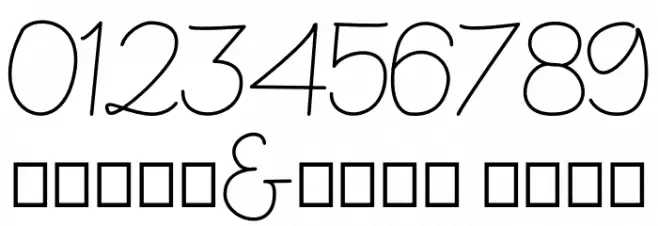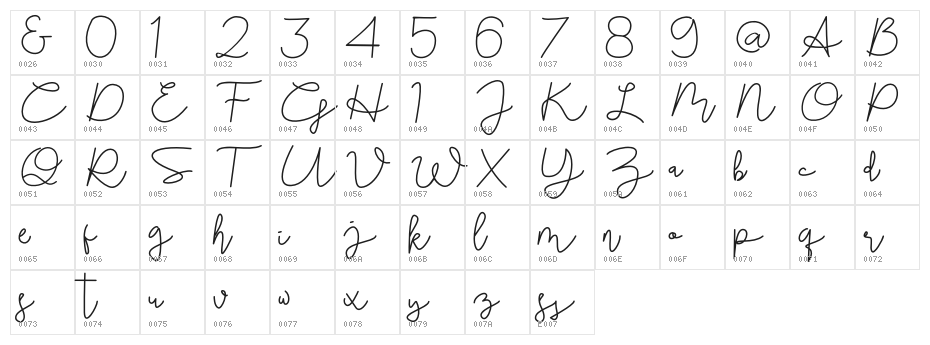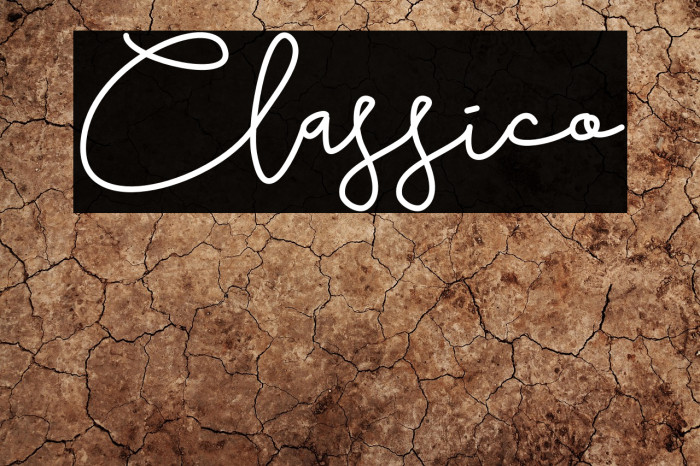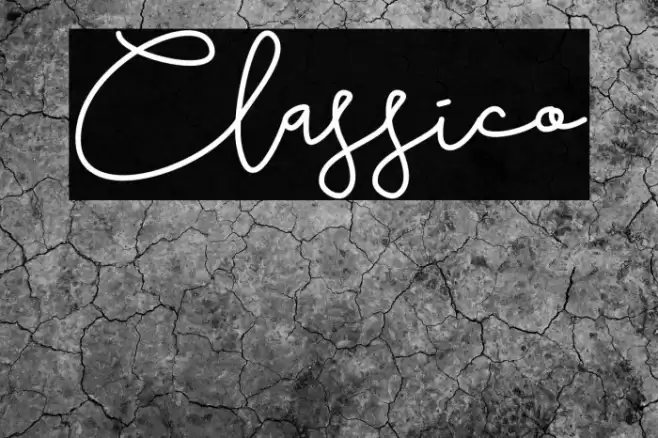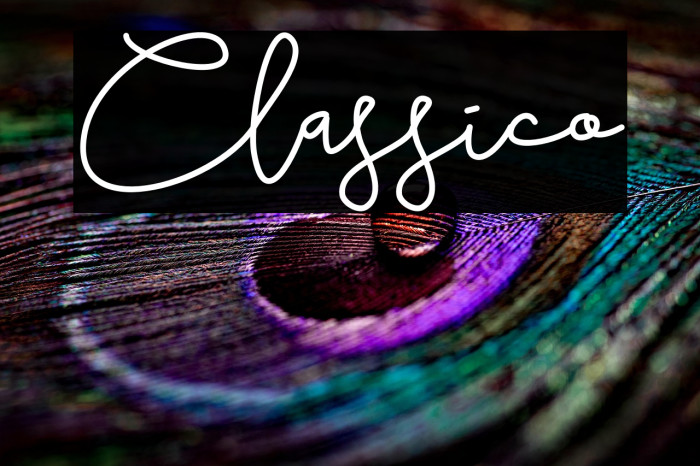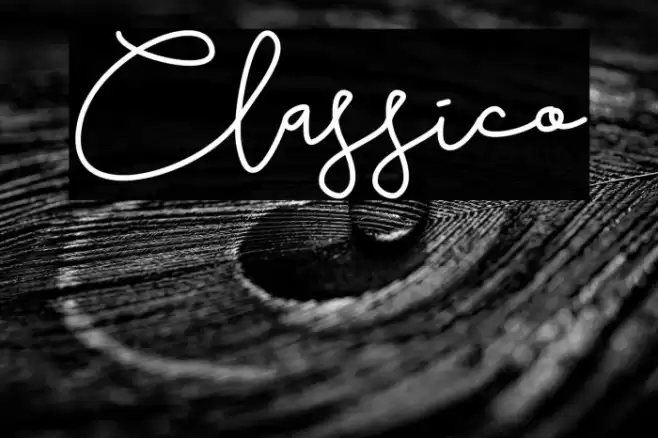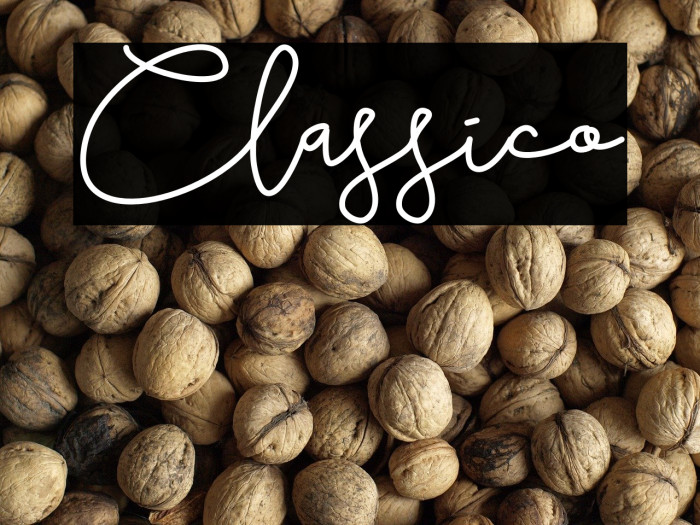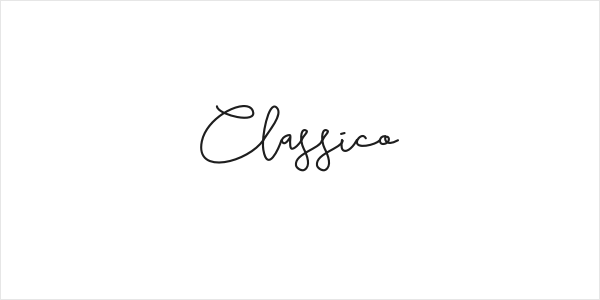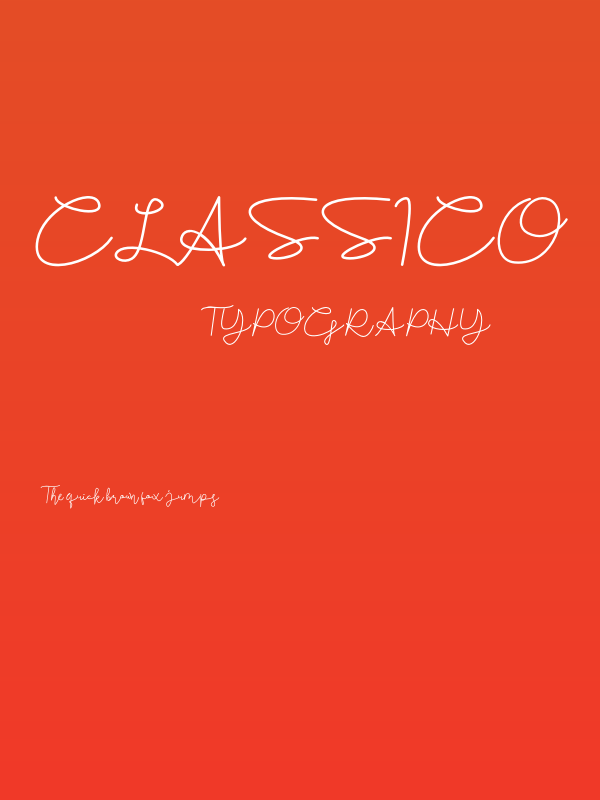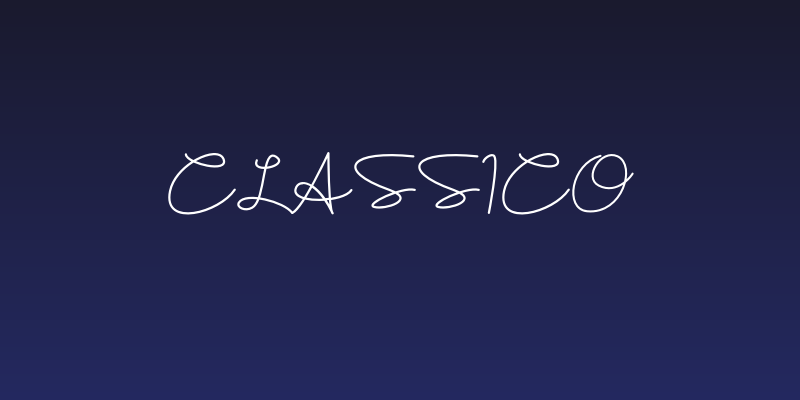
Classico Font
Classico Description
This font features a playful and flowing script style, characterized by its smooth, continuous strokes that mimic the fluidity of handwriting. The uppercase letters are elegantly connected, giving a sense of movement and grace. The lowercase letters maintain a consistent style, with some letters like 'g' and 'j' having distinctive loops that add to the font's charm. The numerals are clear and rounded, complementing the overall aesthetic. Special characters are included, maintaining the same whimsical style. This font is ideal for projects that require a personal touch, such as invitations, greeting cards, or branding materials.
Use CaseLogos, Headlines, Invitations
Proposed ProjectsIdeal for invitations, greeting cards, branding, and personal projects.